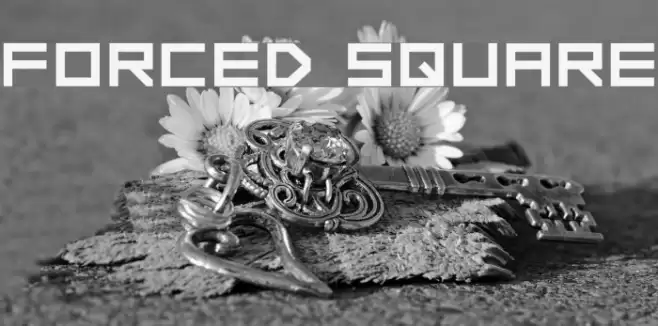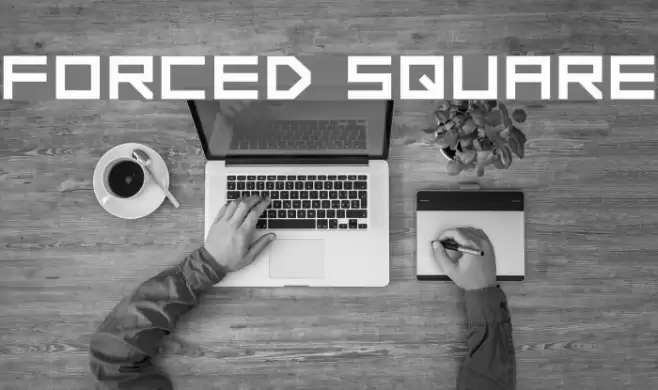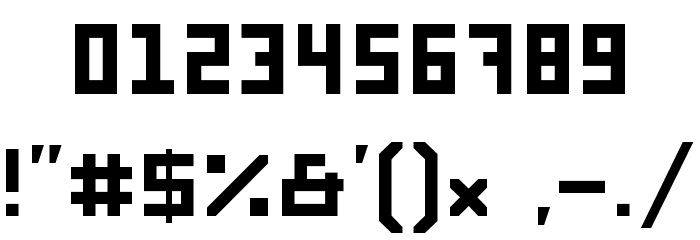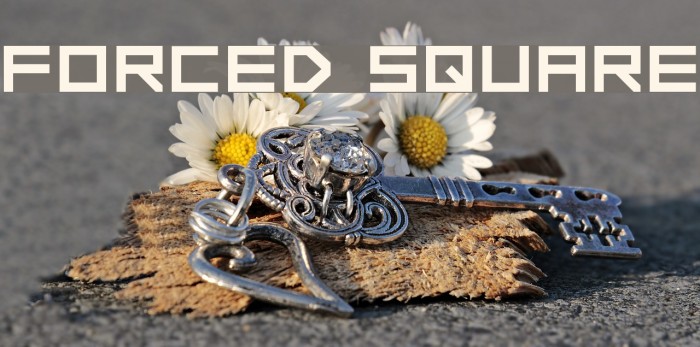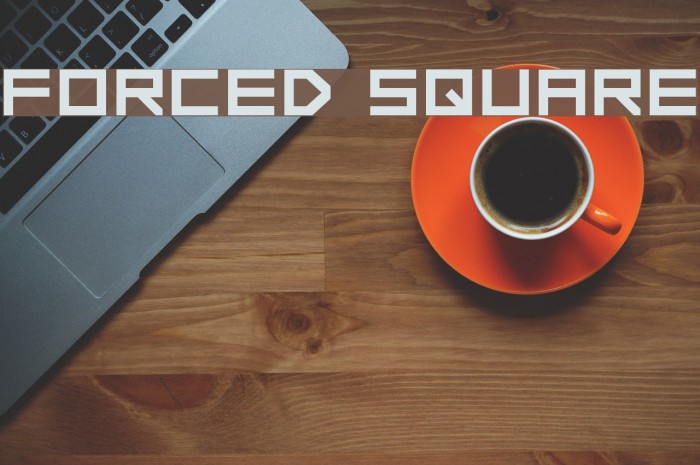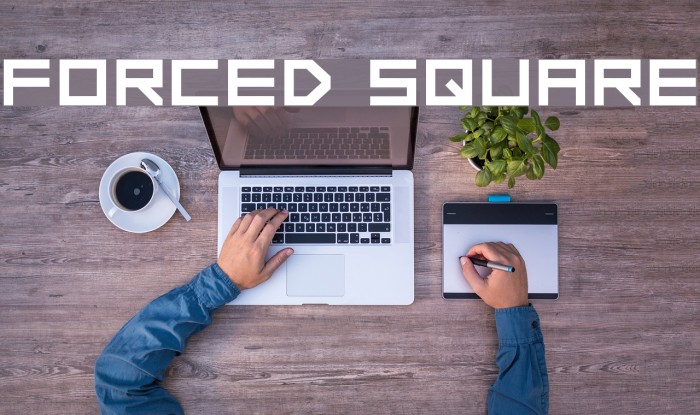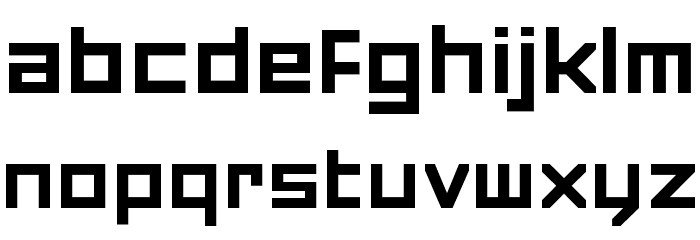
FORCED SQUARE Font
FORCED SQUARE Description
This font features a geometric and angular design, characterized by its square and blocky appearance. The letters are constructed with straight lines and sharp corners, giving it a modern and futuristic feel. The uppercase and lowercase characters maintain a consistent width, creating a uniform look. The numerals and special characters follow the same design principles, ensuring cohesion throughout. This font's bold and structured style makes it highly legible and impactful, suitable for various design applications.
A geometric, angular font with a modern, blocky style from Futuristic fonts.
- Proposed Projects: Ideal for technology branding, video game titles, posters, and digital interfaces.